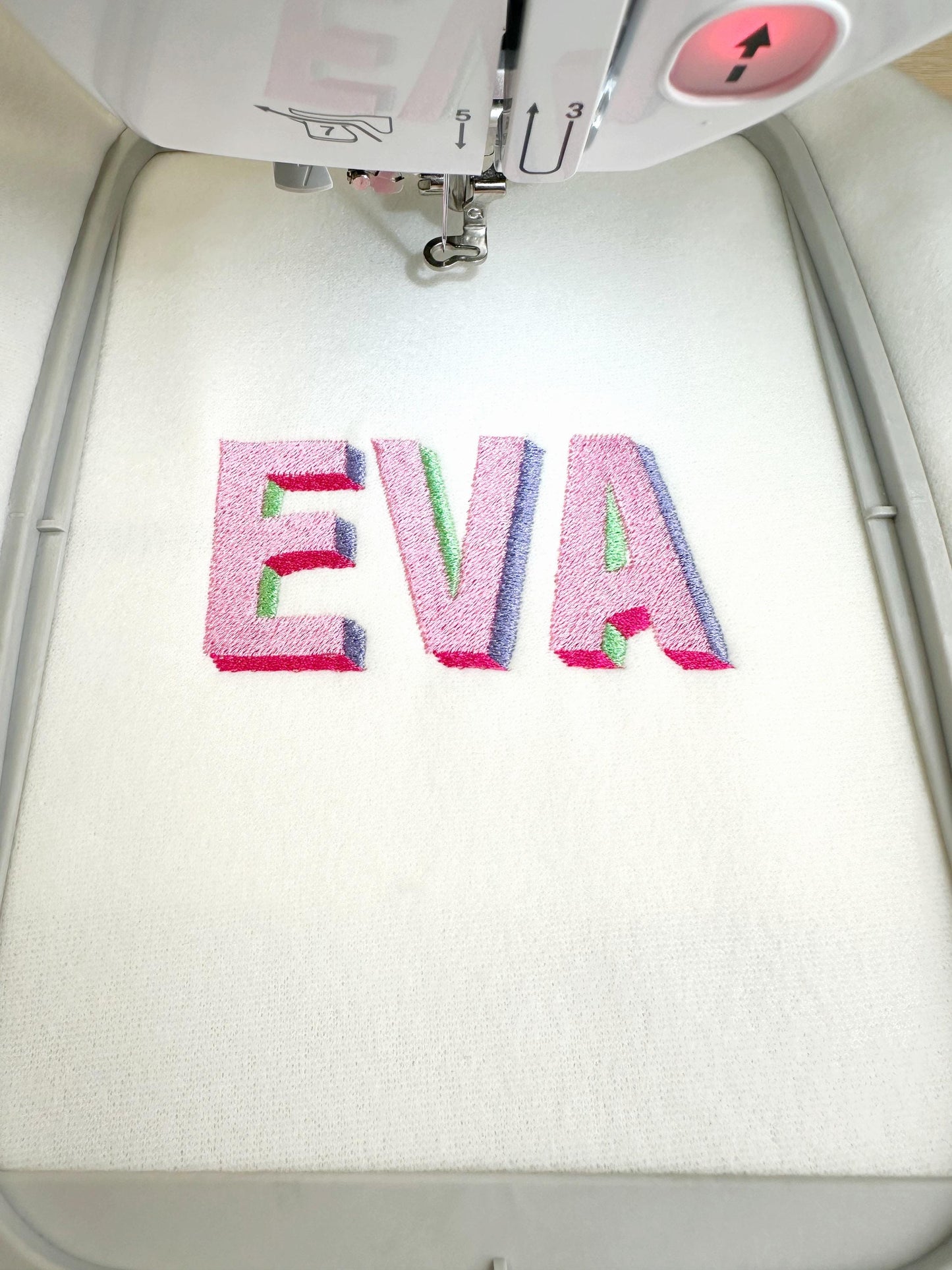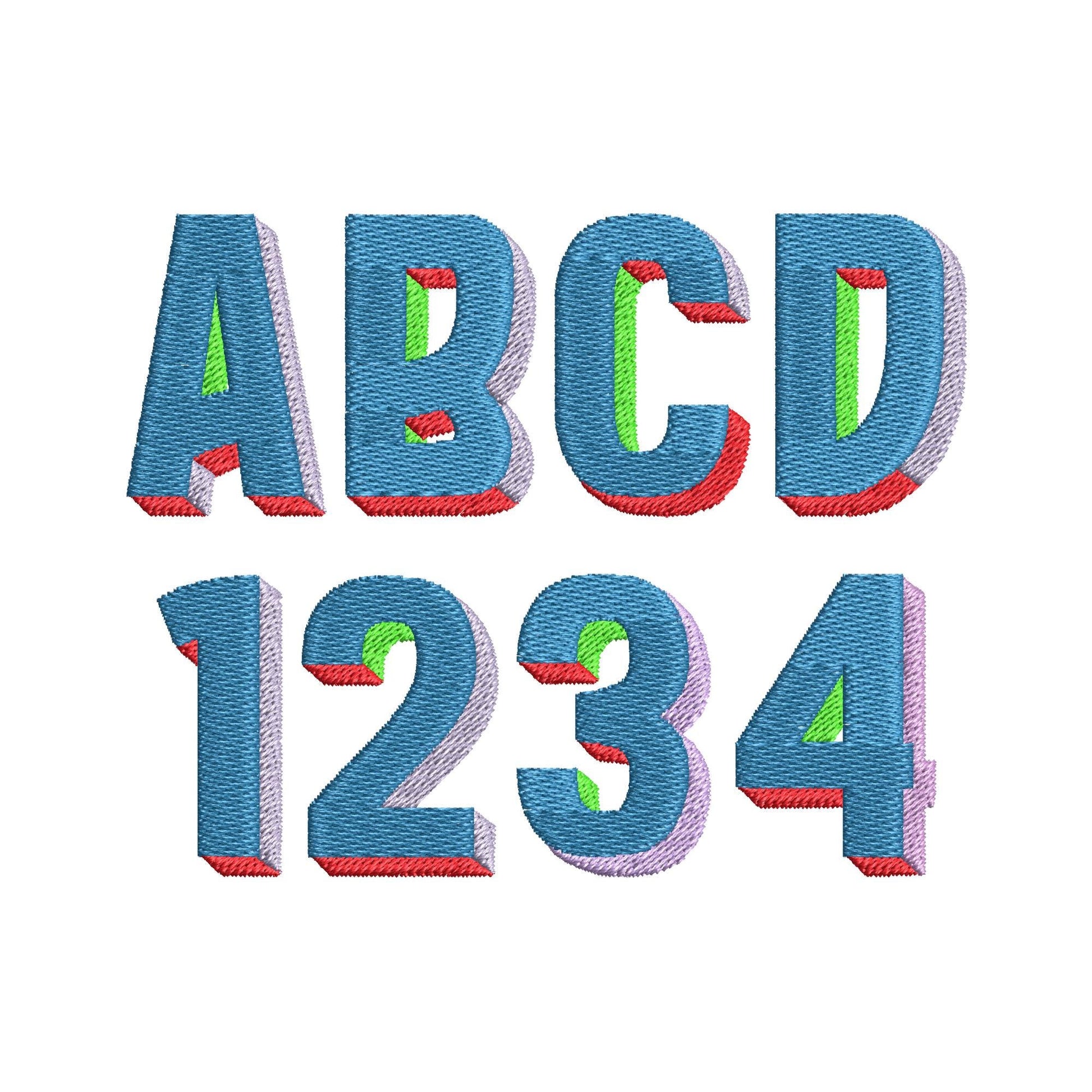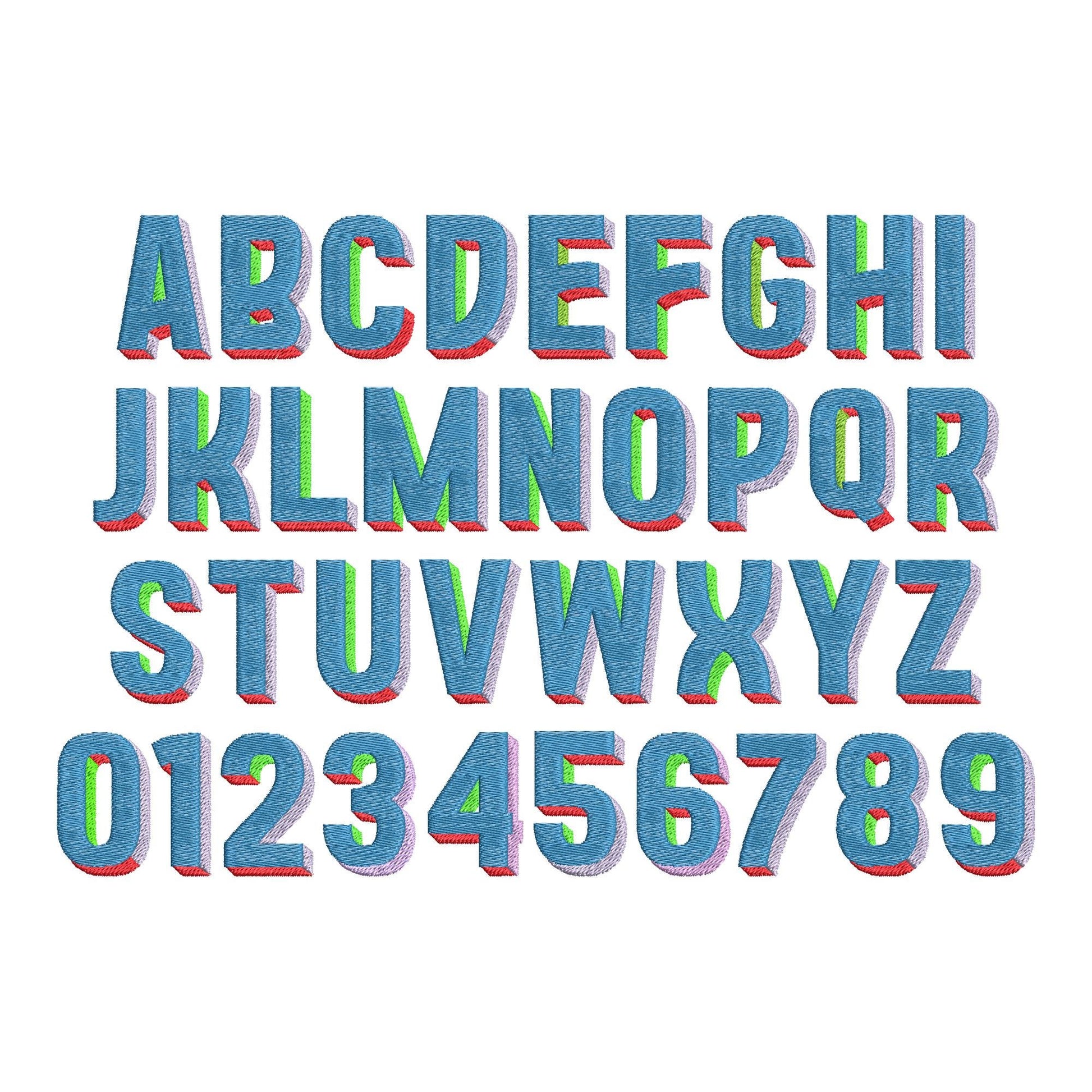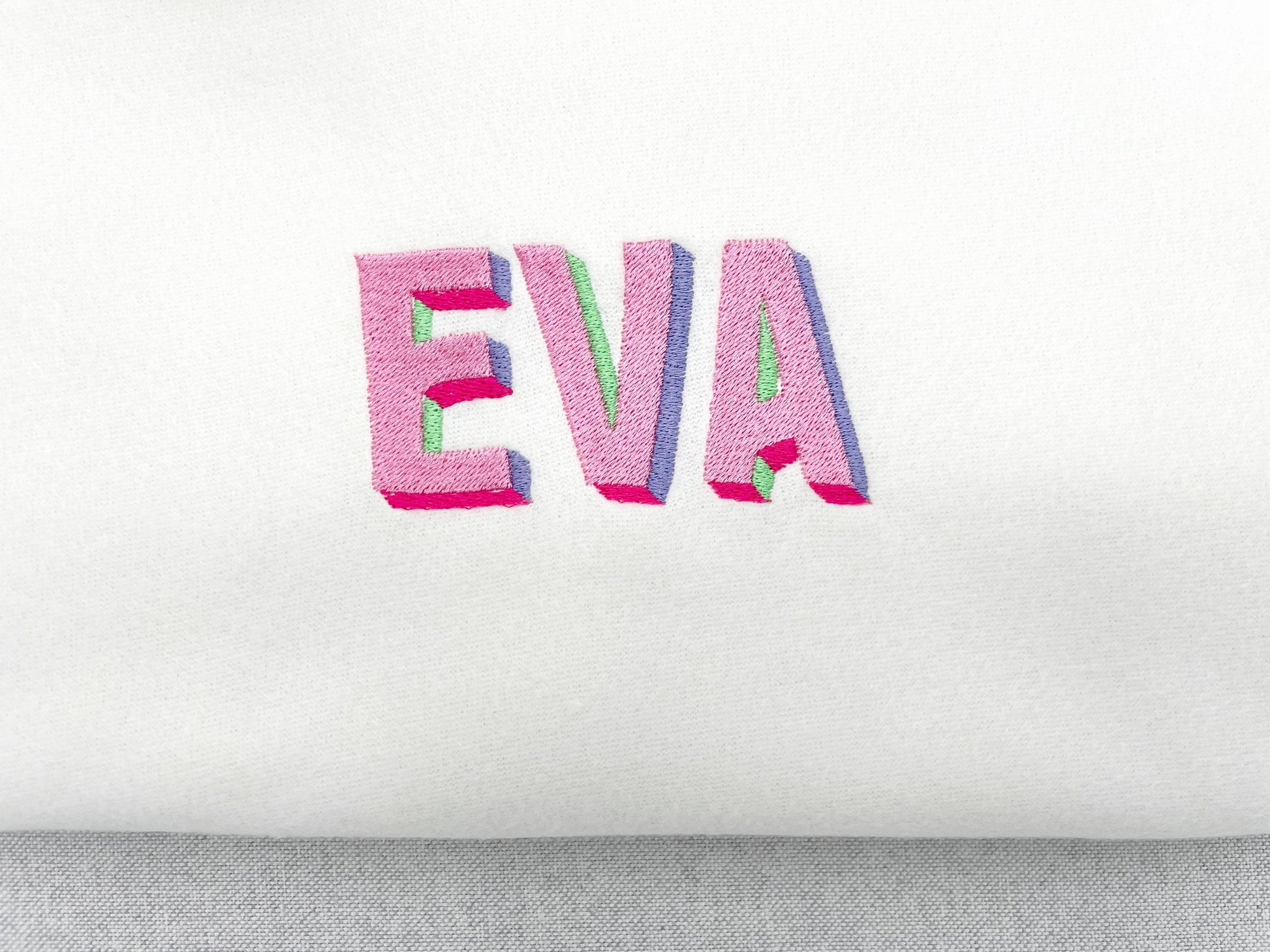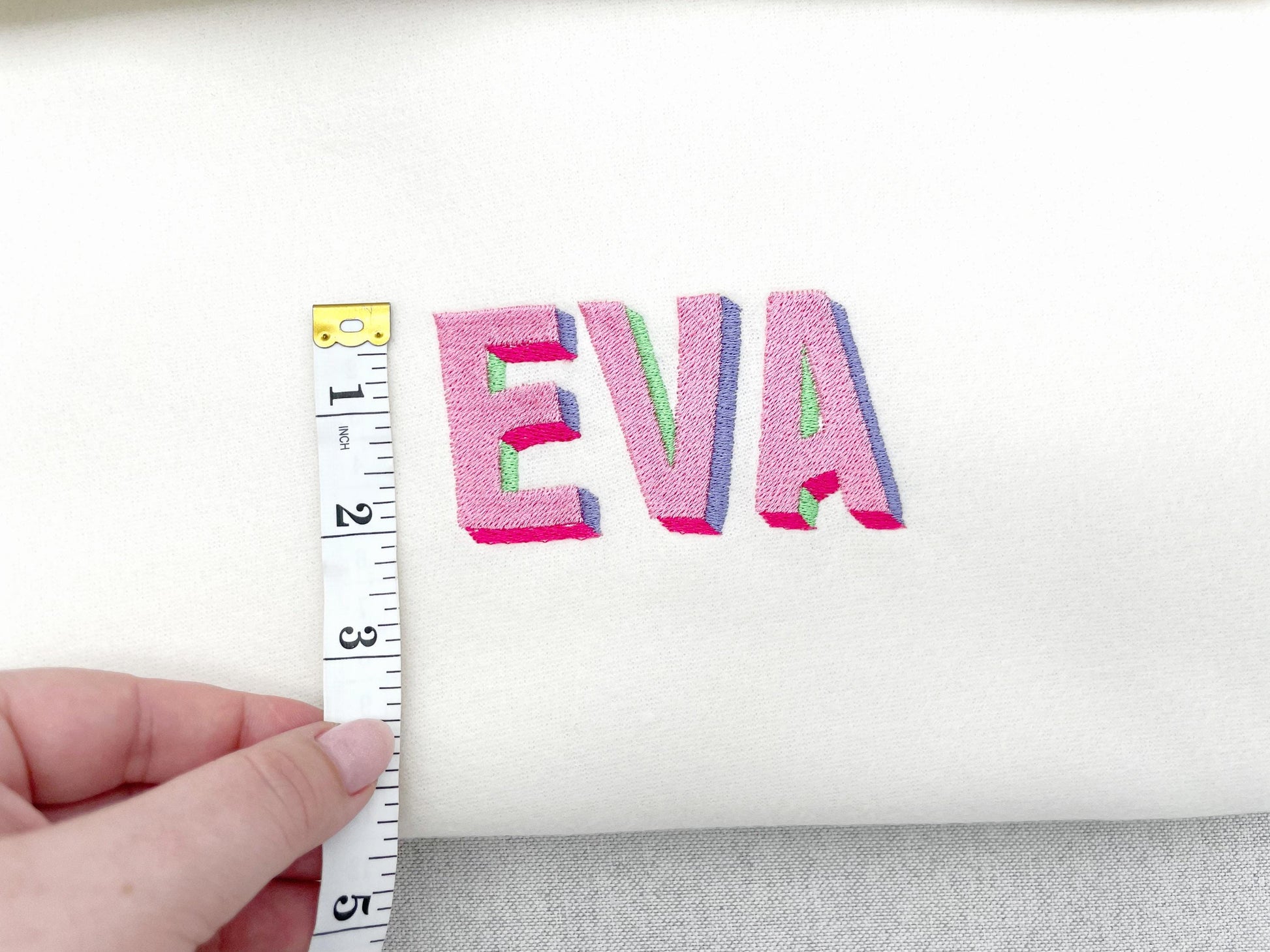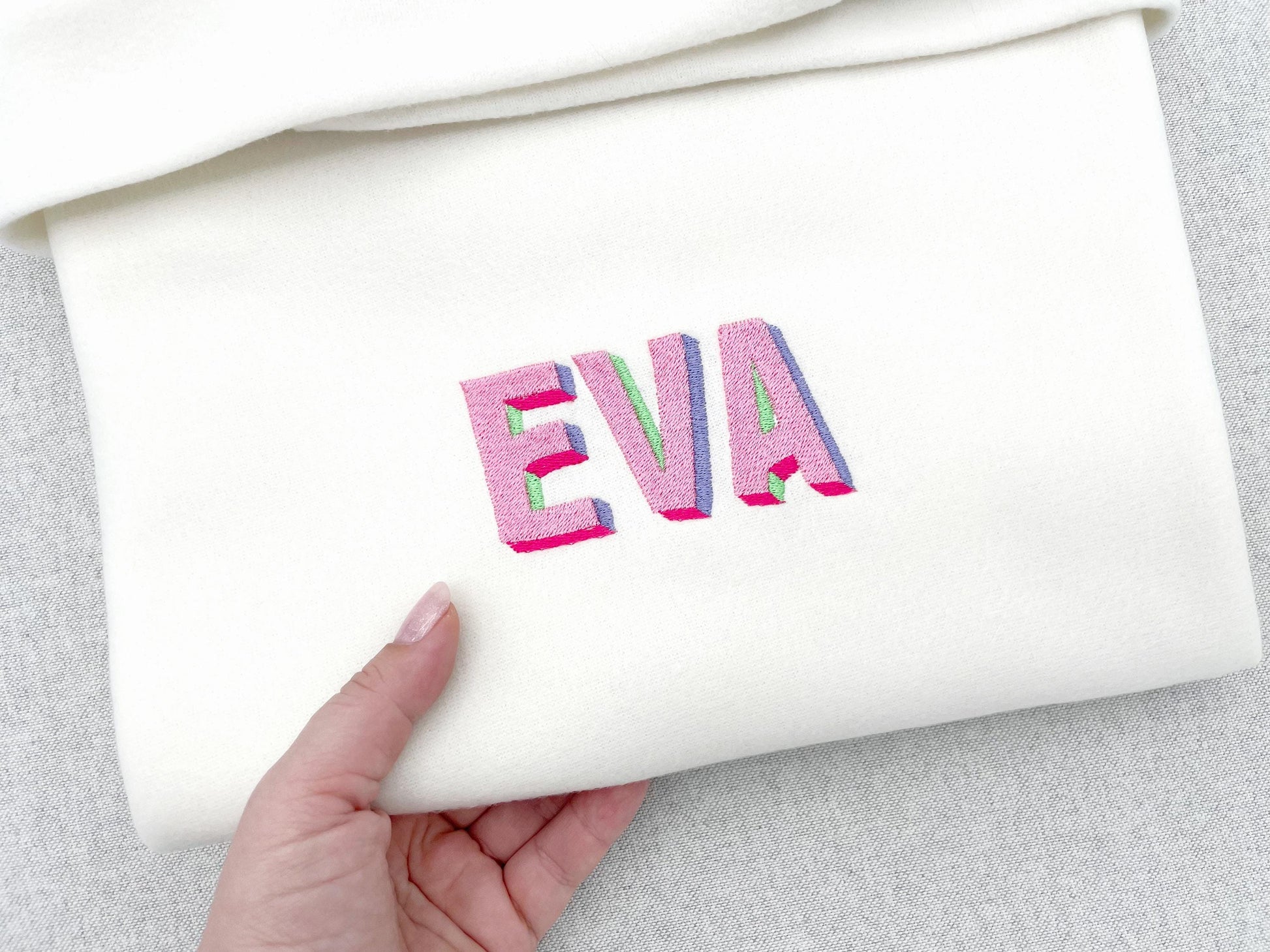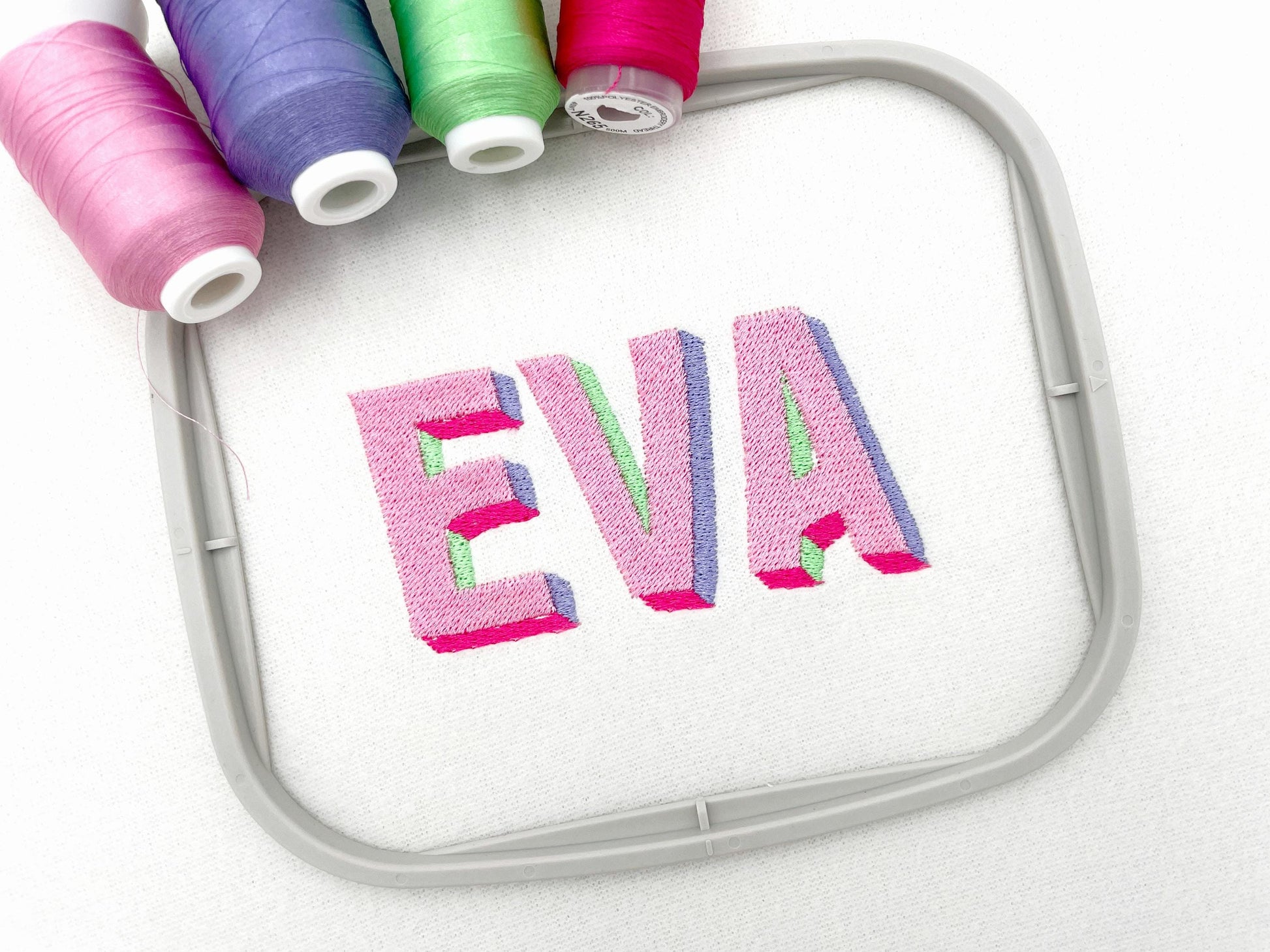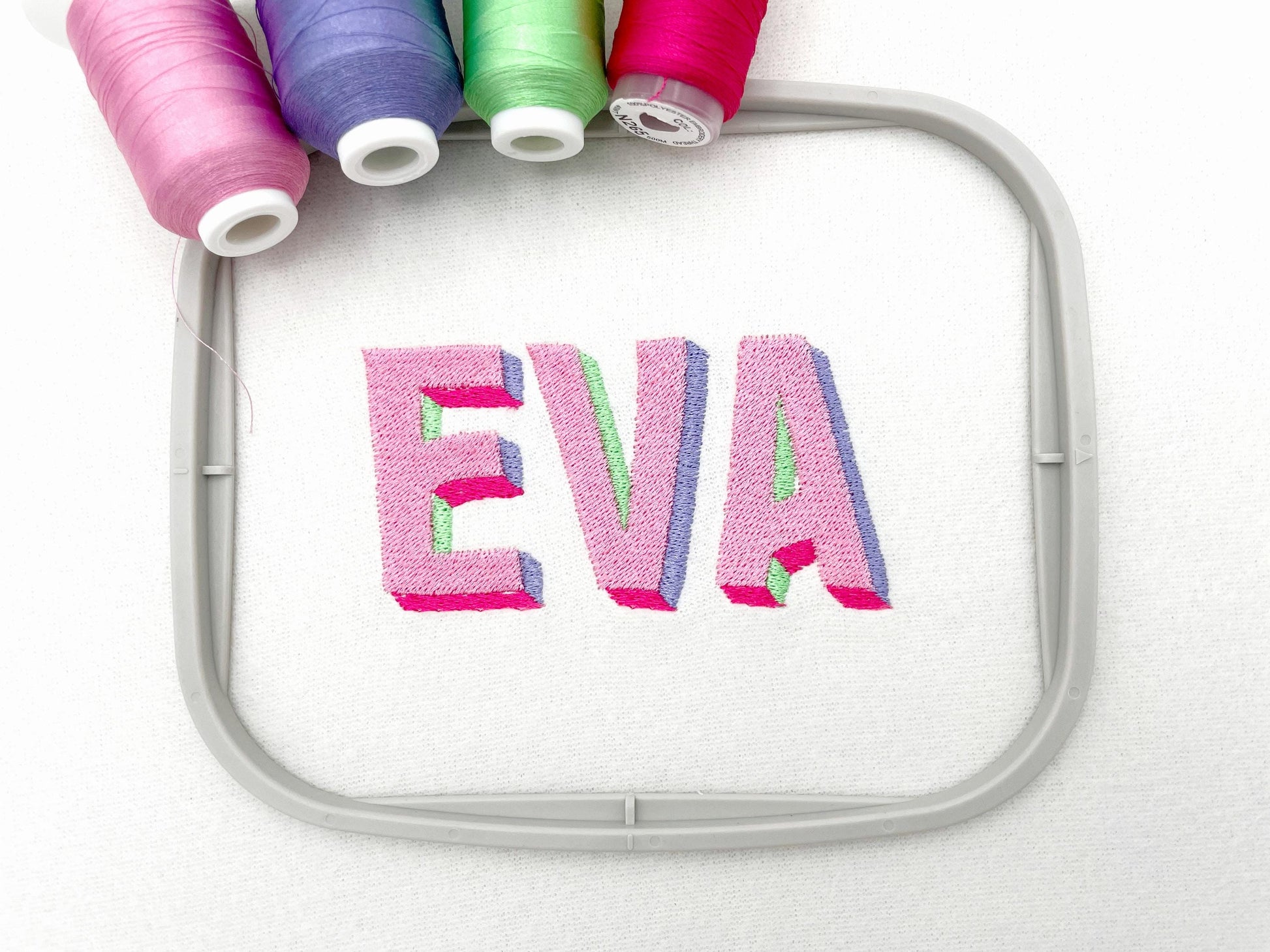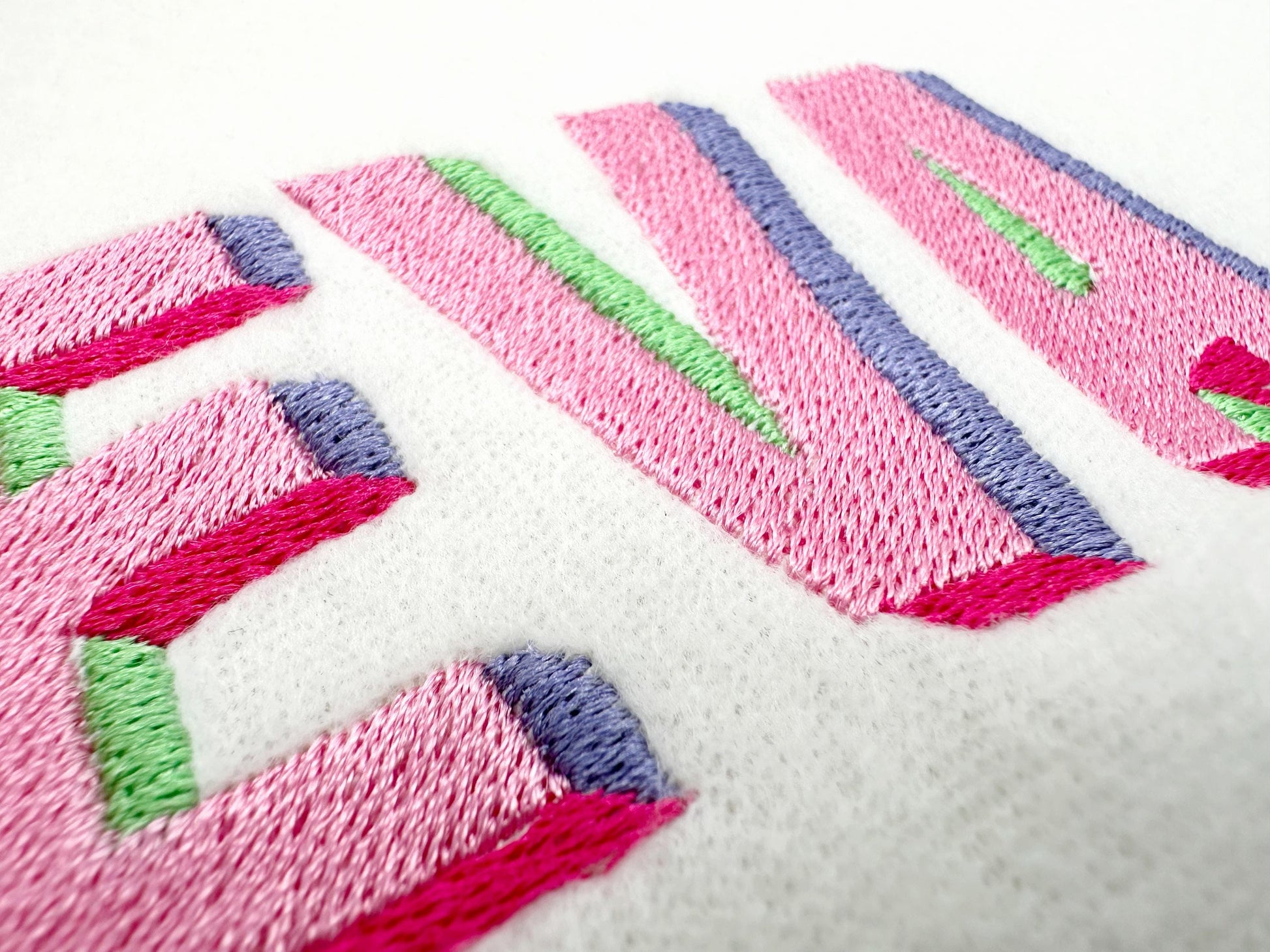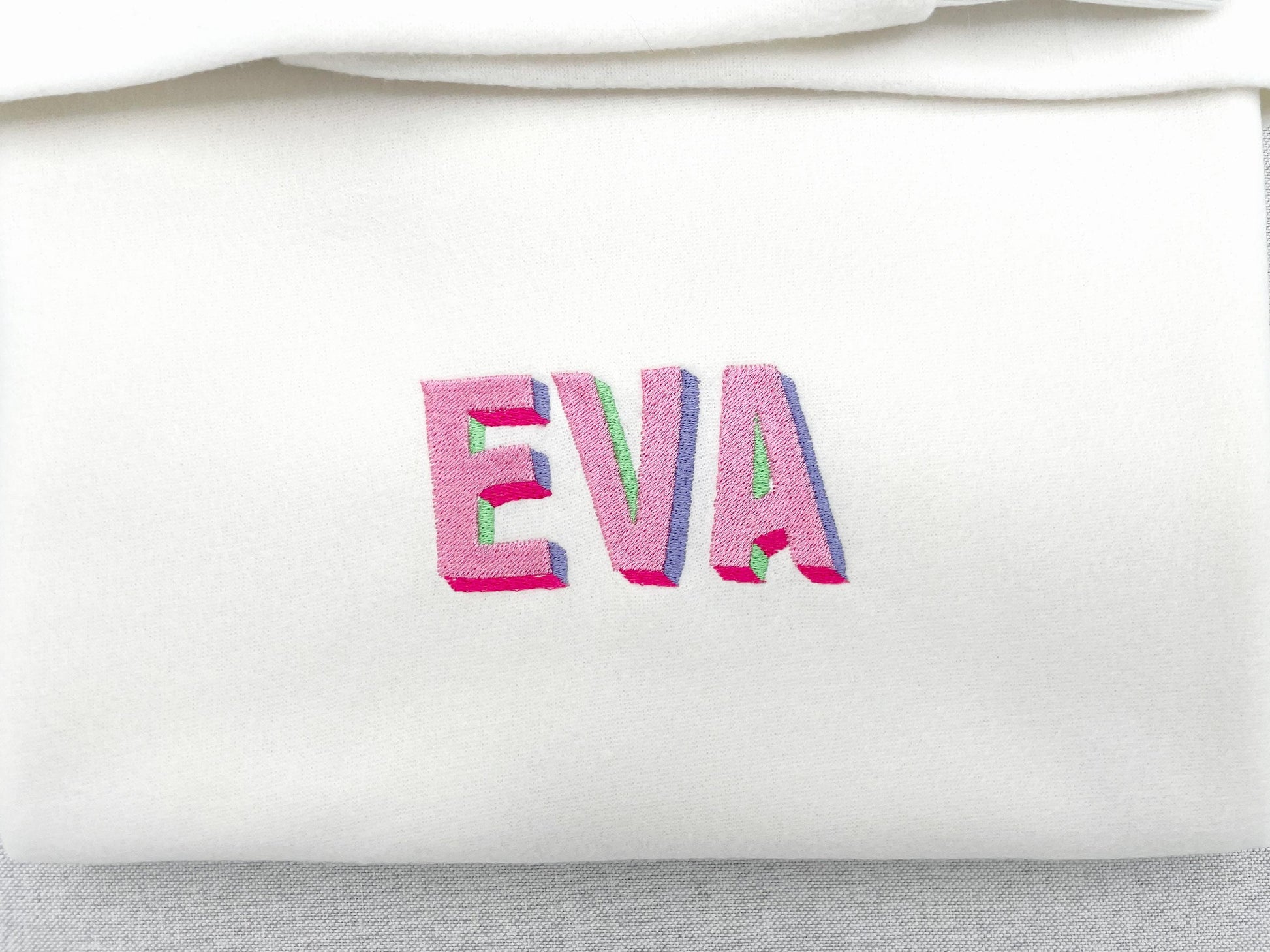
Split Drop Shadow Font
The letters come in seven sizes: 1, 1.2, 1.5, 1.9, 2.4, 3 and 3.6 inches. Includes uppercase letters A-Z and numbers 0-9.
- Split drop shadow font: uppercase letters A-Z and numbers 0-9
- 7 letter sizes, 1 to 3.6 in